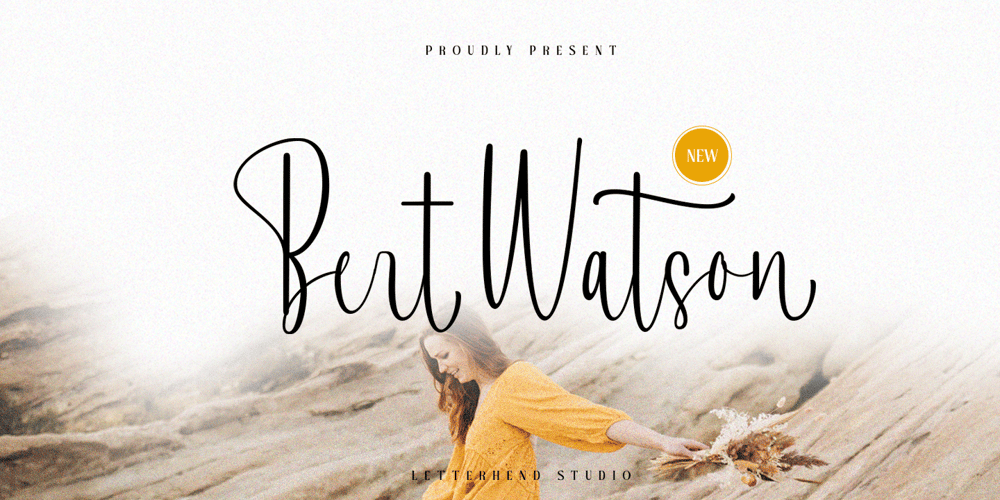
Bert Watson Font Family was designed by Hendry Juanda and published by Letterhend. Bert Watson contains 1 styles and family package options. Bert Watson is a beauty script based on a modern calligraphy with natural hand writing look and feel. It can be used as digital signature as well. It has many alternates and ligatures which contain many swashes that you can play with. This type of font perfectly made to be applied especially in logo, and the other various formal forms such as invitations, labels, logos, magazines, books, greeting / wedding cards, packaging, fashion, make up, stationery, novels, labels or any type of advertising purpose.Features : uppercase & lowercase numbers and punctuation multilingual alternates and ligatures swashes PUA encoded We highly recommend using a program that supports OpenType features and Glyphs panels like many of Adobe apps and Corel Draw, so you can see and access all Glyph variations. How to access opentype feature : letterhend.com/tutorials/using-opentype-feature-in-any-software/